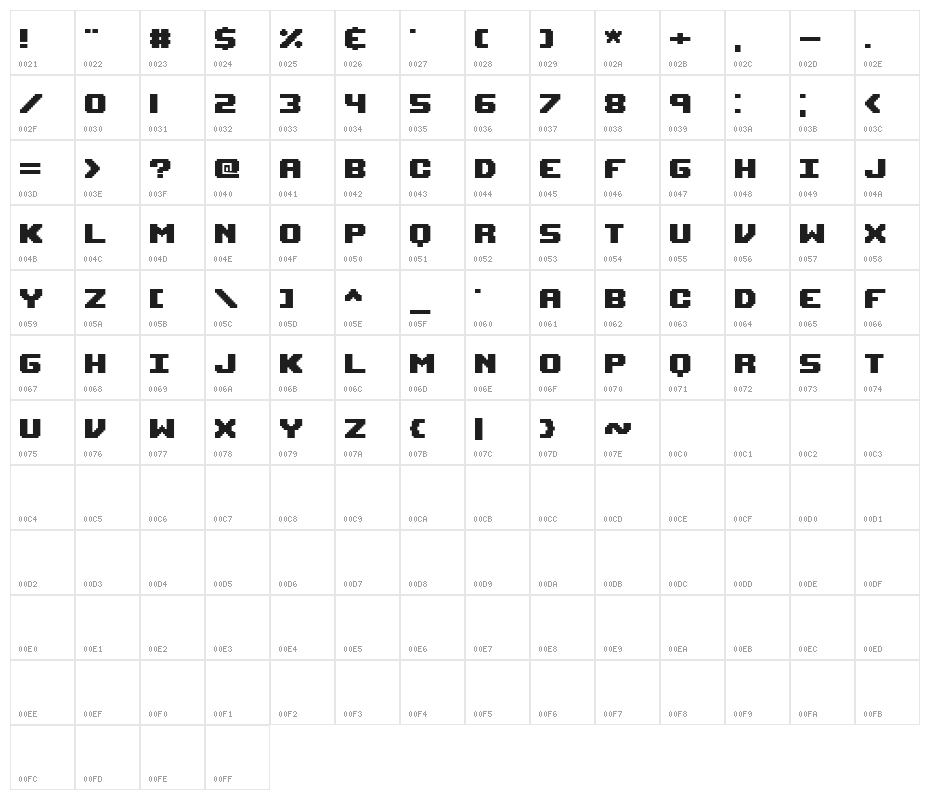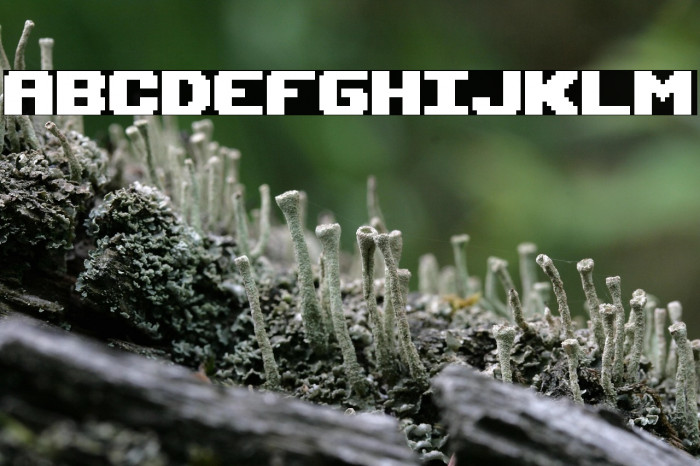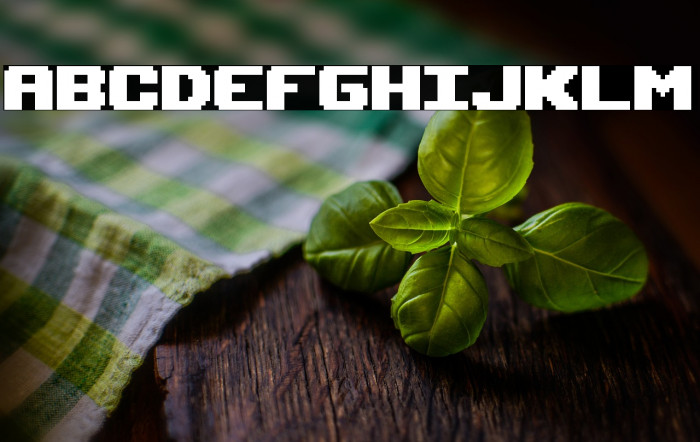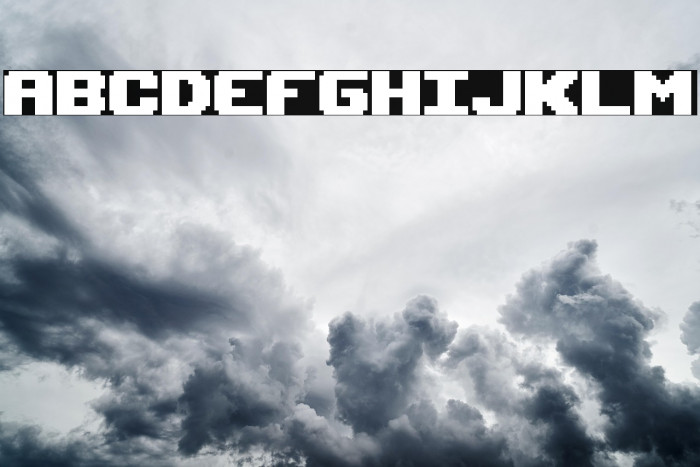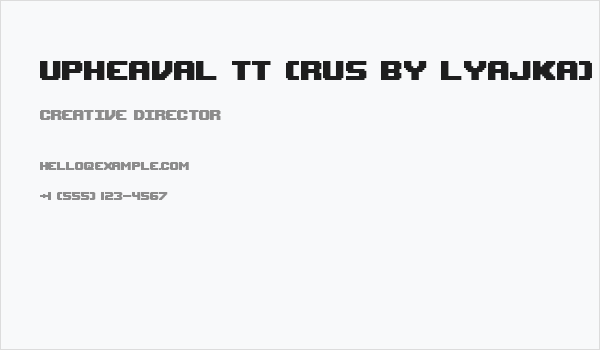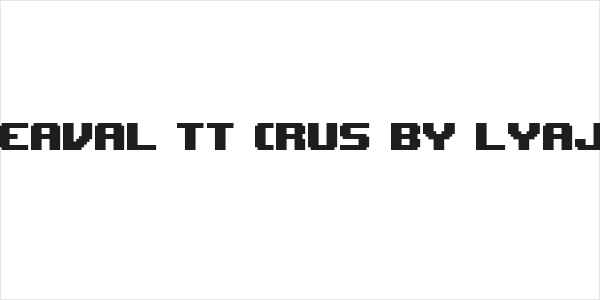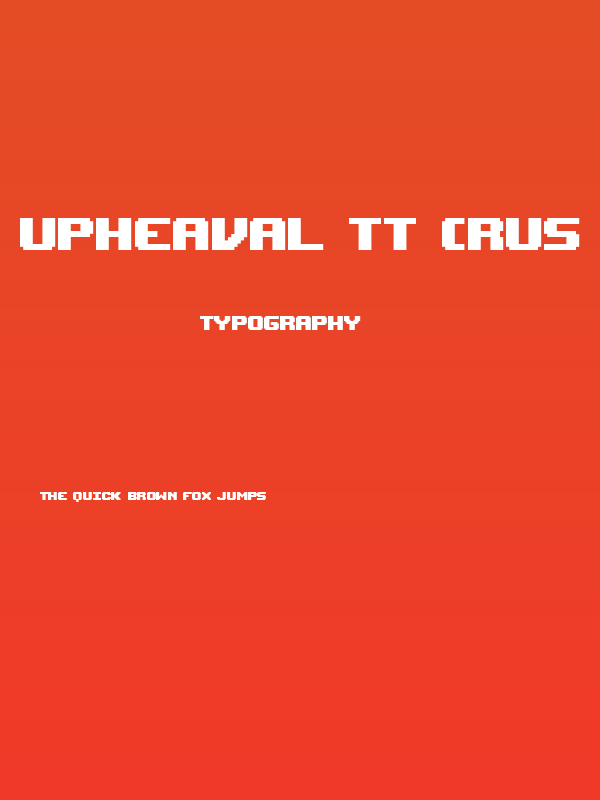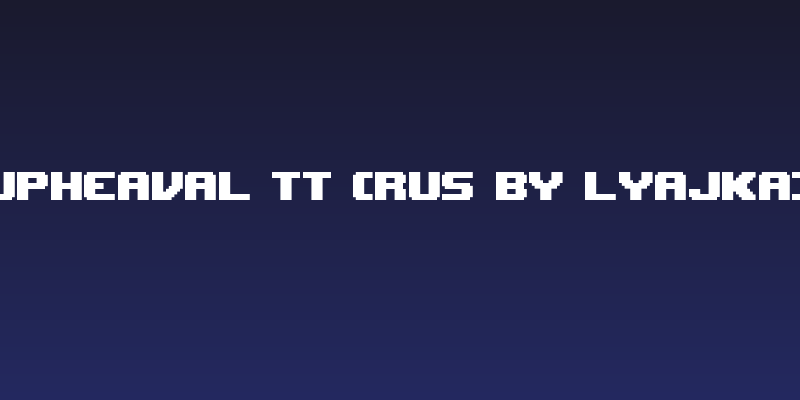
Upheaval TT (RUS BY LYAJKA) Font
Upheaval TT (RUS BY LYAJKA) Description
This font features a bold, pixelated design reminiscent of classic video game aesthetics. Each character is constructed with a blocky, grid-like structure, giving it a retro, digital feel. The uppercase and lowercase letters maintain a consistent height, enhancing the uniformity and readability of the text. Numbers and special characters follow the same pixelated style, ensuring a cohesive look across all elements. The font's design is straightforward yet impactful, making it ideal for projects that require a nostalgic or tech-inspired theme.
| Overall Style | Retro, Digital |
| Proposed Projects | Ideal for video game designs, retro-themed posters, digital art, and tech-related branding. |